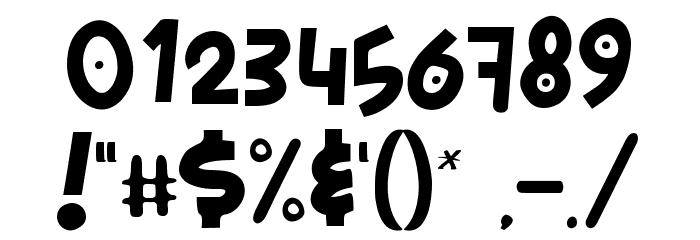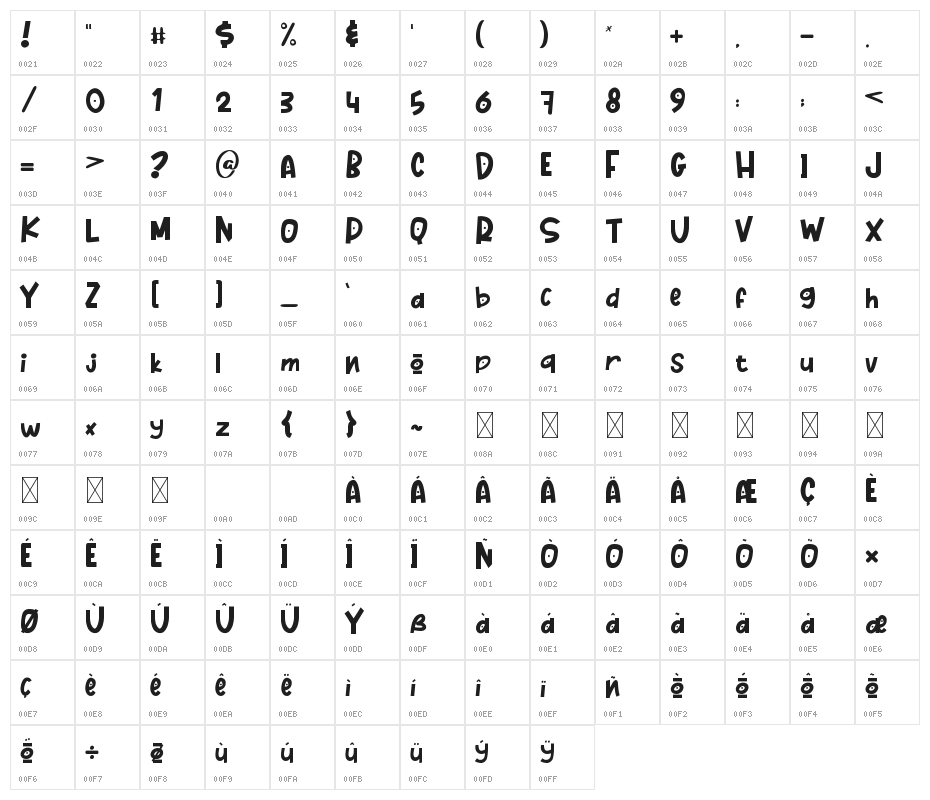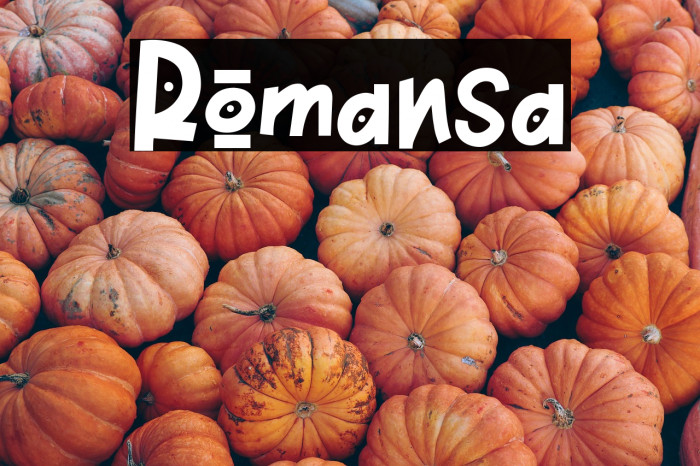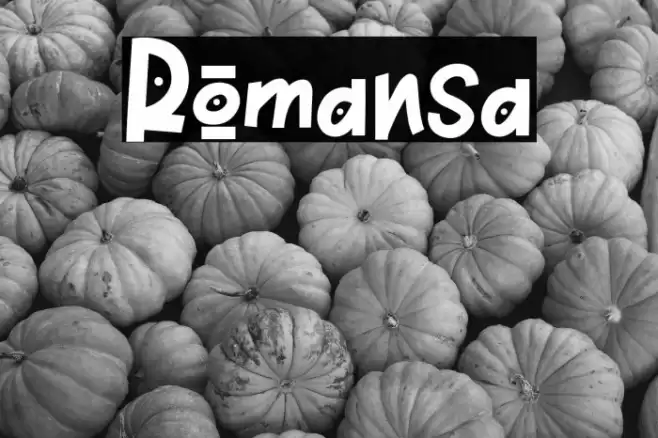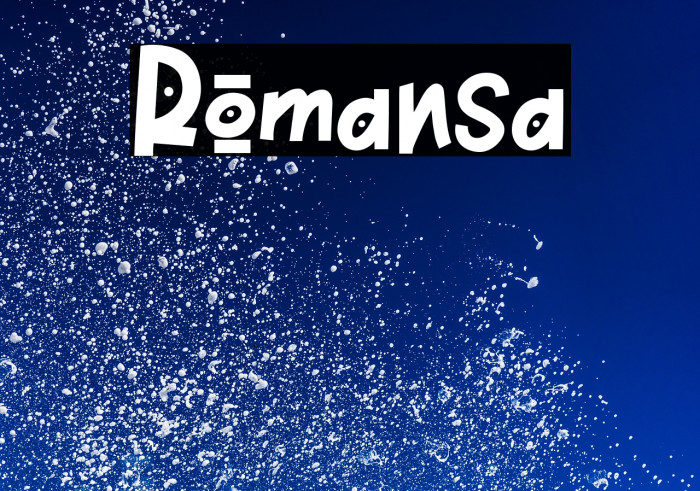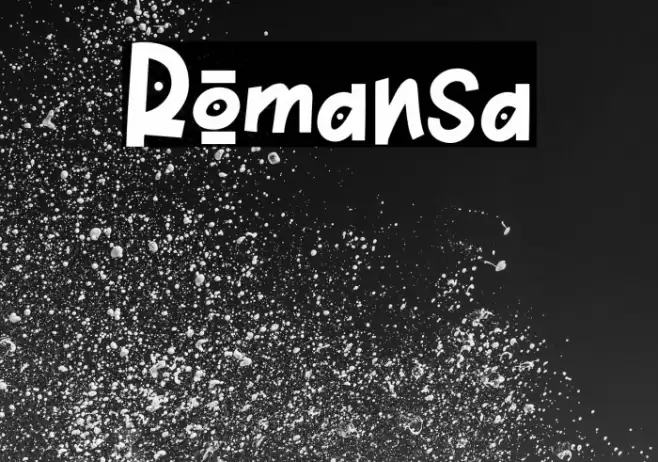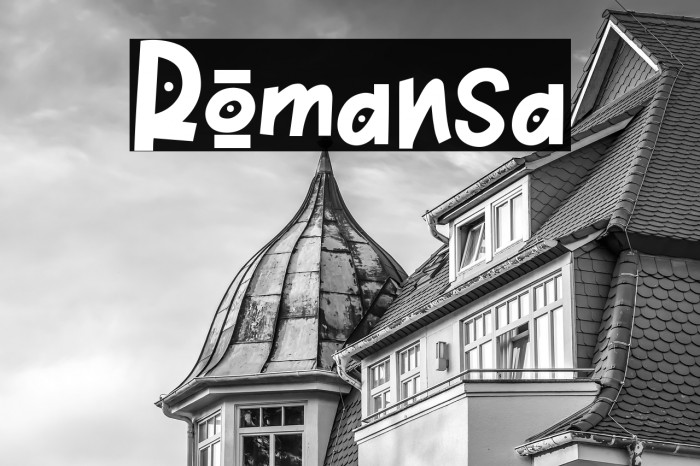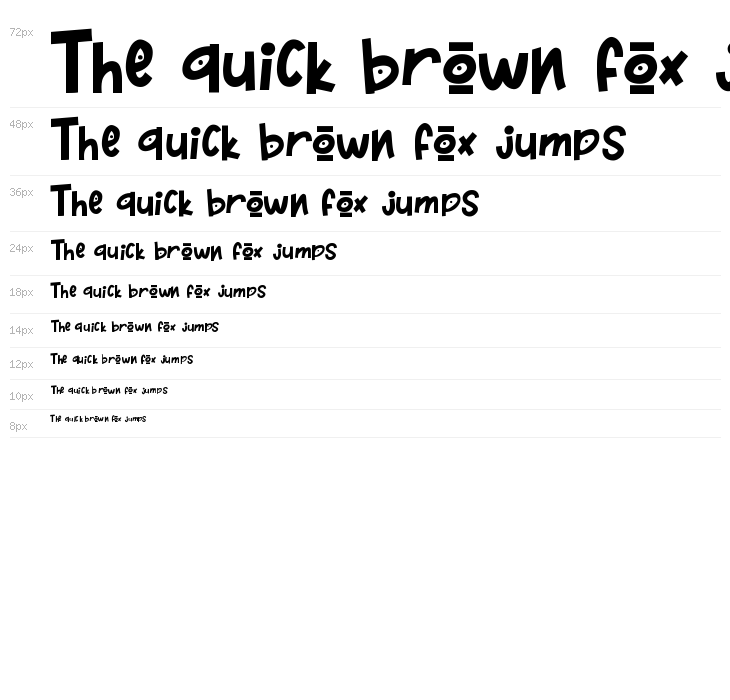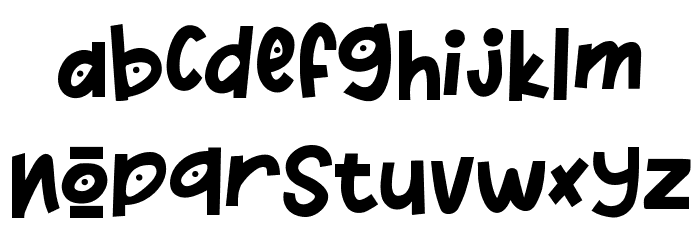
Romansa Font
This font features a playful and bold style with a distinctively quirky character. The uppercase letters are robust and slightly irregular, giving a hand-drawn, whimsical feel. The lowercase letters maintain this playful aesthetic, with some characters exhibiting unique flourishes and curves. The numbers are bold and consistent with the overall style, ensuring readability while maintaining the font's fun nature. Special characters are creatively designed, adding to the font's versatility. This font's boldness and unique character make it suitable for projects that require a touch of personality and creativity.
| Proposed Projects | Ideal for children's books, playful branding, posters, and creative invitations. |